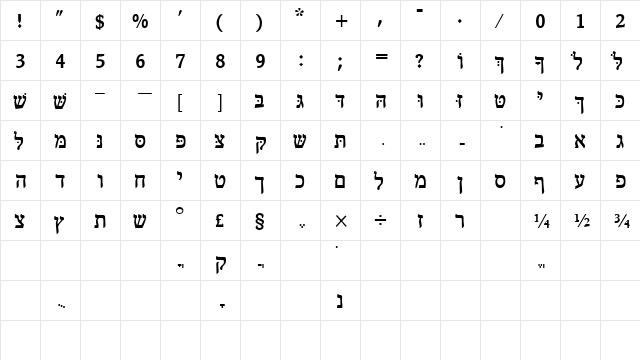
BCSSK Regular Font Preview
BCSSK Regular
BCSSK Regular Font Details
Design Context for BCSSK Typeface
BCSSK offers clean, dependable letterforms without strong stylistic allegiance, making it a practical choice for designers who need flexibility.